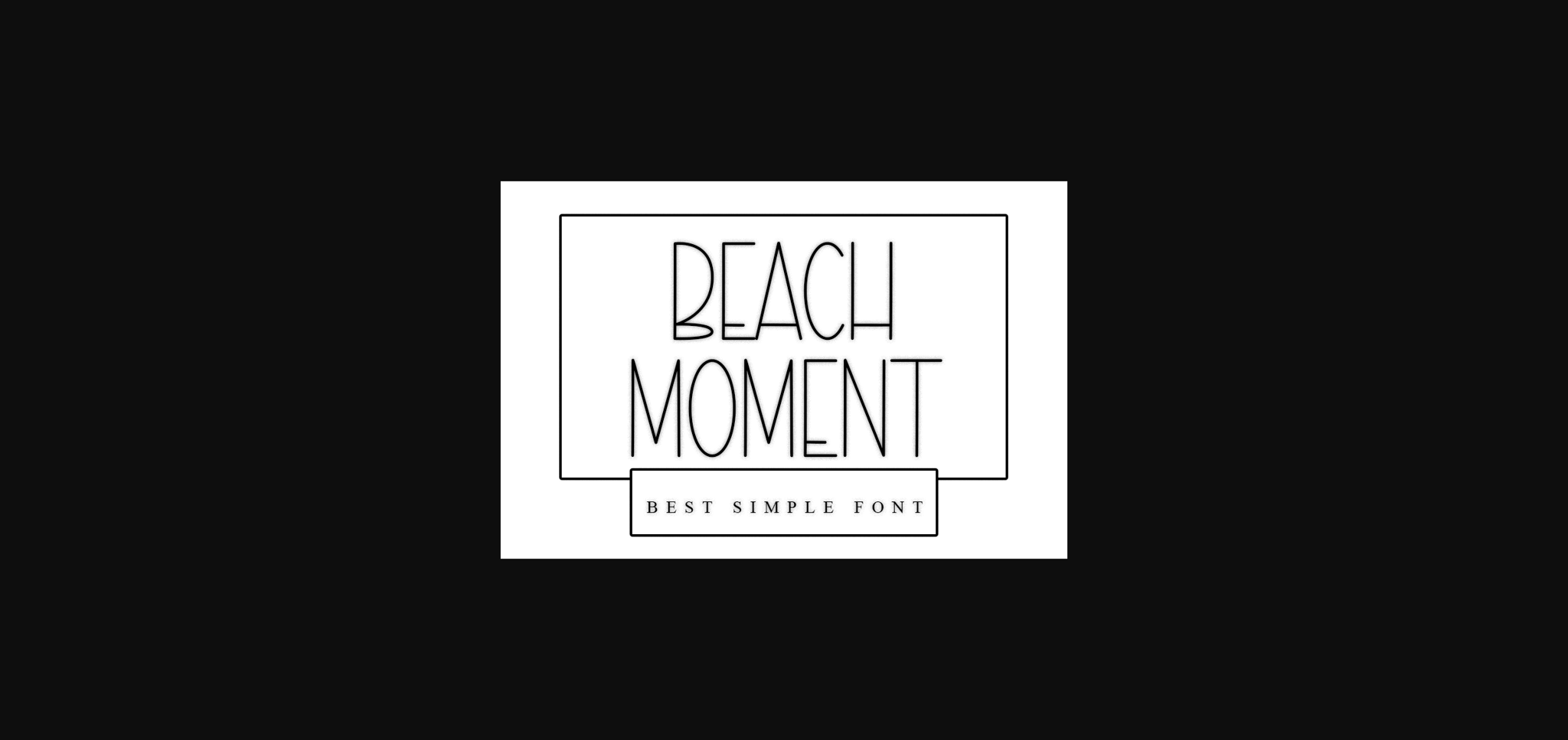
About Beach Moment Font
Beach Moment is a cool and modern sans-serif font. Whether you’re using it for crafts, digital design, presentations, or making greeting cards, this font has the potential to become your favorite go-to font, no matter the occasion.